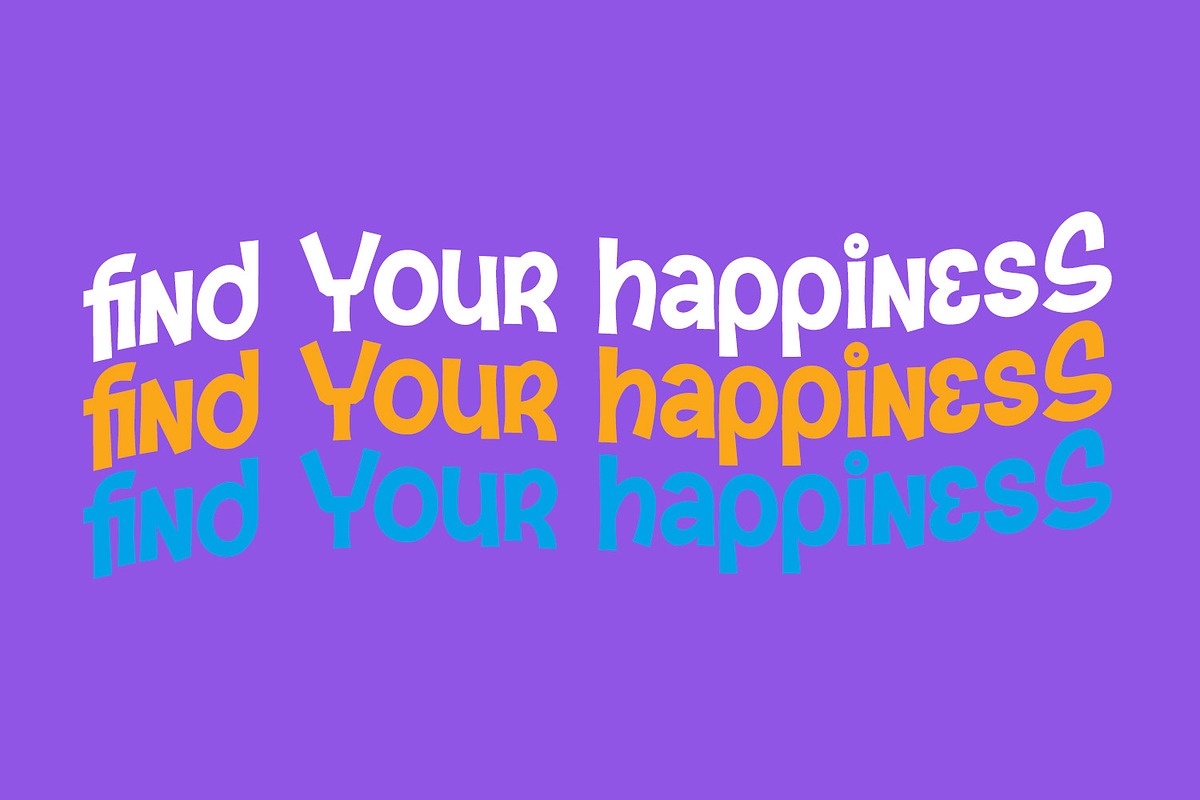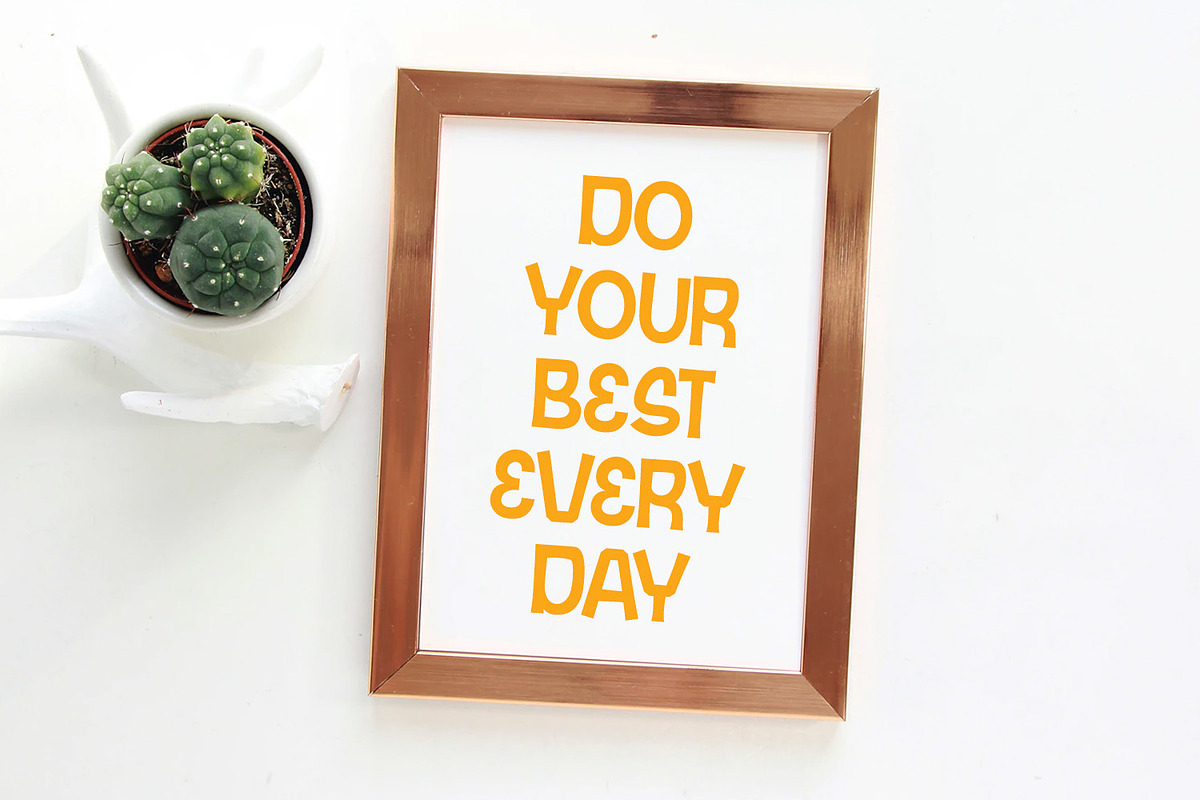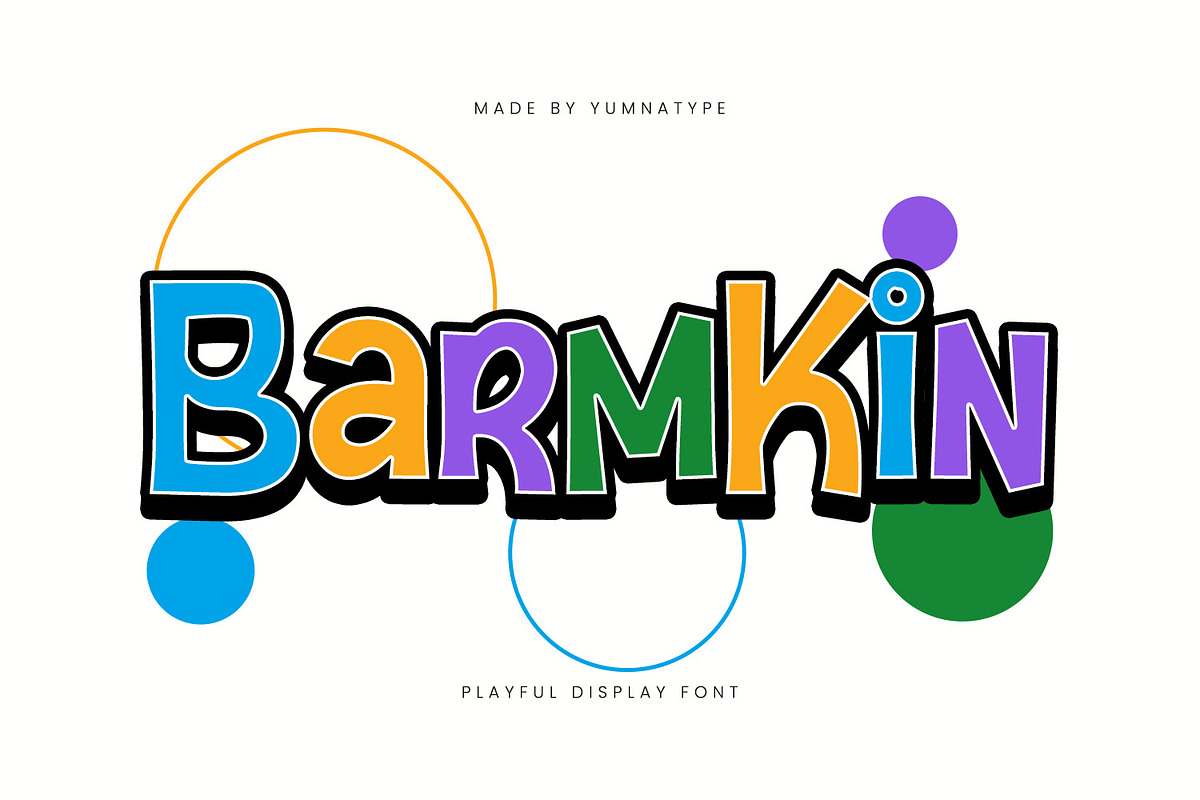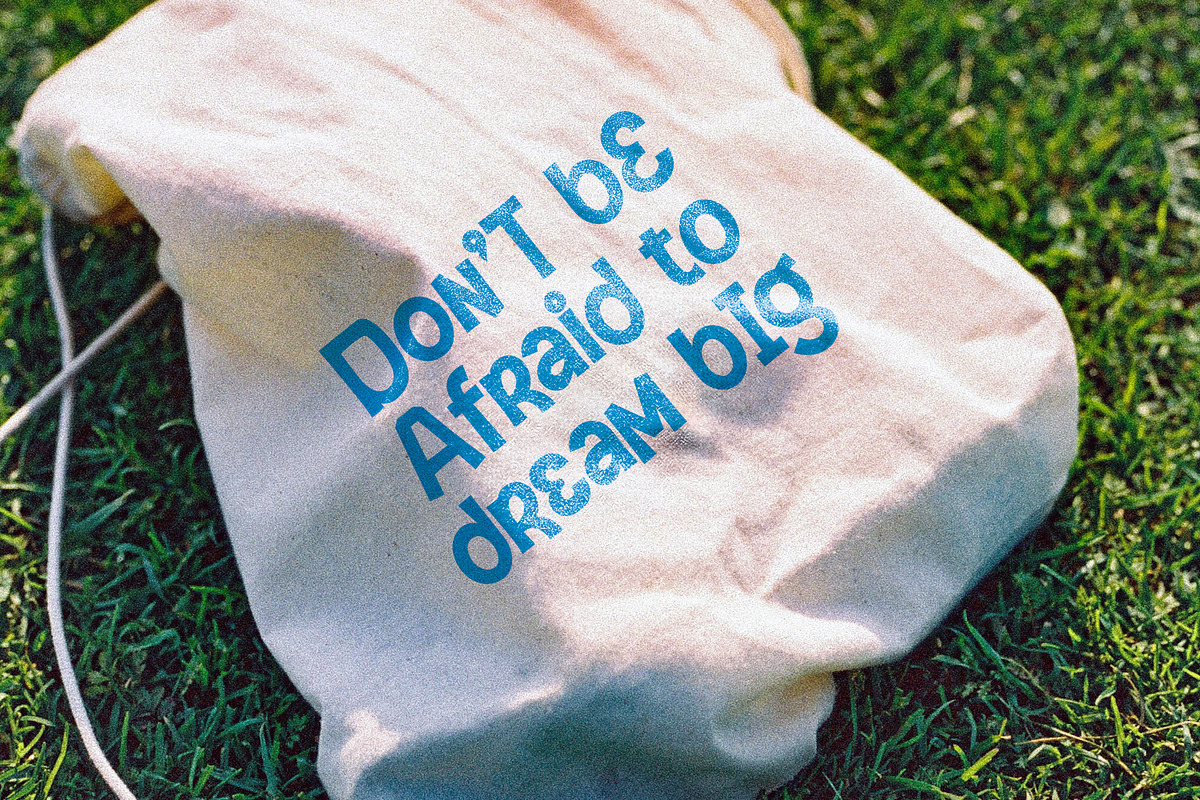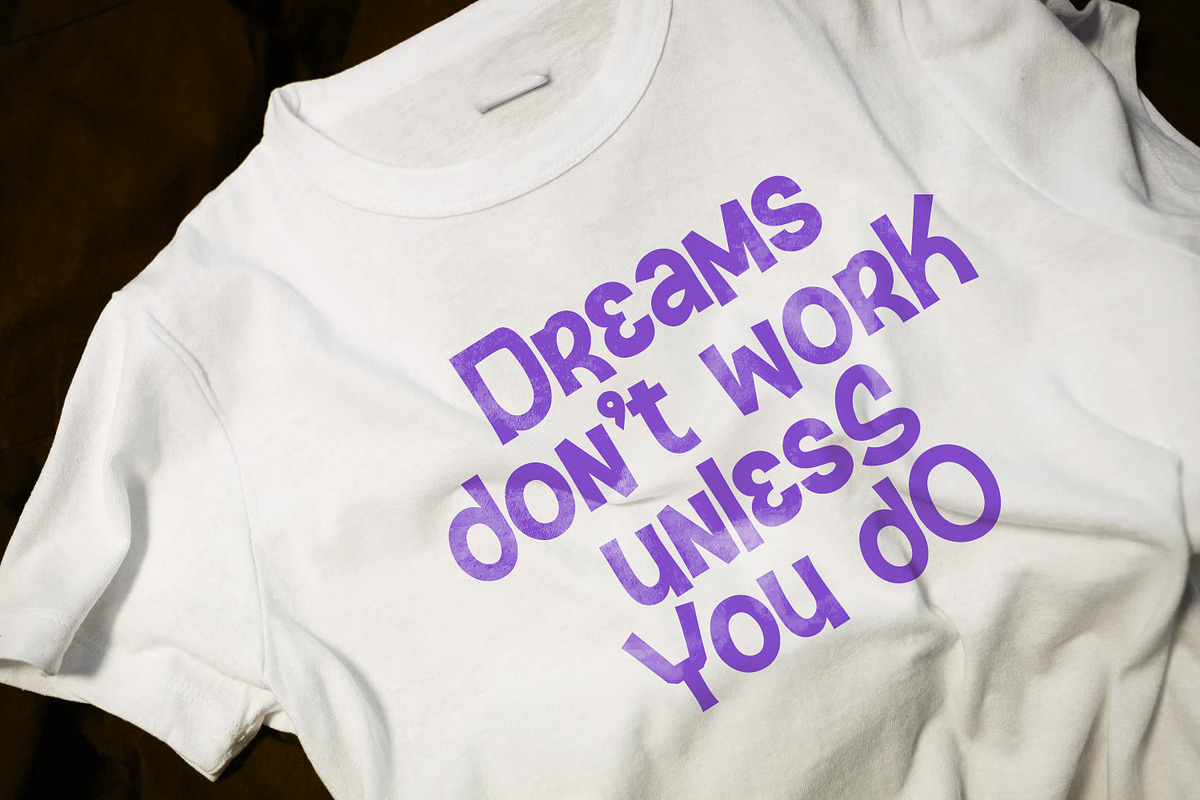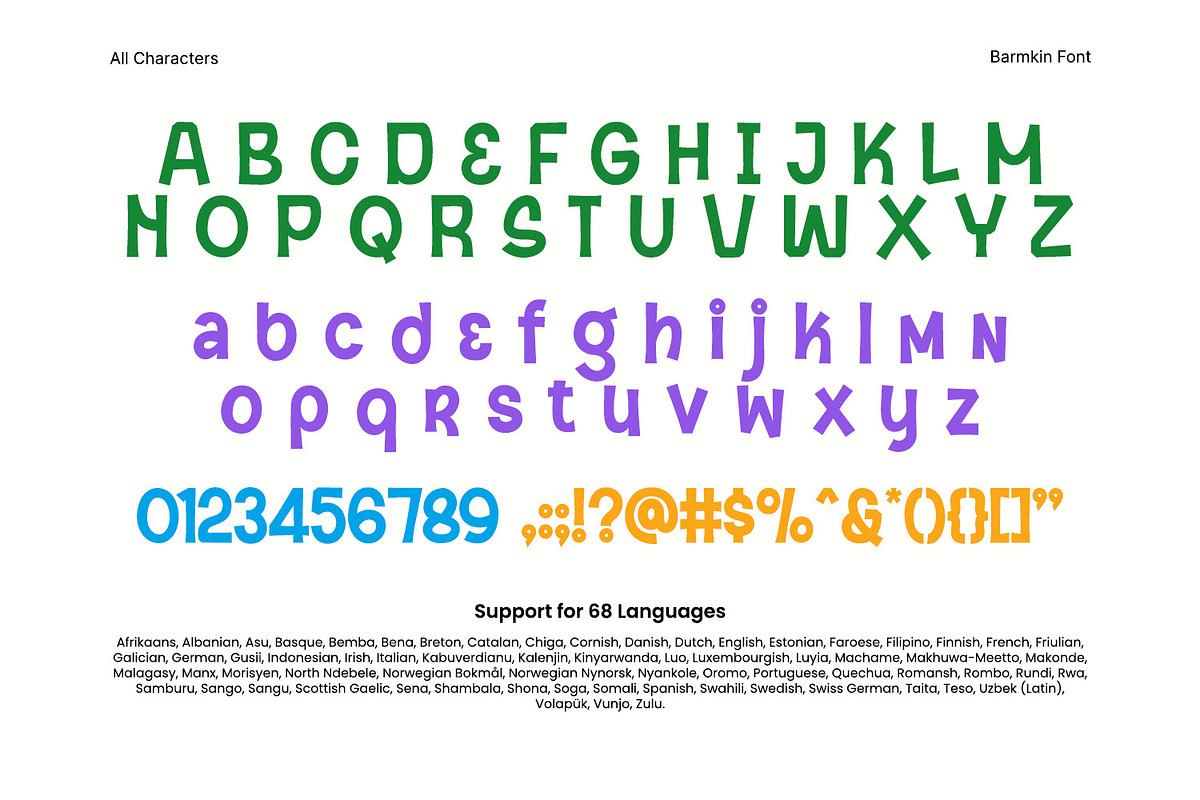
Barmkin
Barmkin is a striking display font designed to captivate with its playful style and bold presence. This font designshapes that tend to be square, lending it a sturdy and reliable feel, while some rather sharp corners inject a touch of edginess and modernity into its overall look.
Crafted with a quite thick weight, Barmkin commands attention and stands out in any context. Despite its robust weight, the font maintains low contrast between the strokes, ensuring a smooth and cohesive appearance that enhances readability without compromising on style. In addition, enjoy the features here.